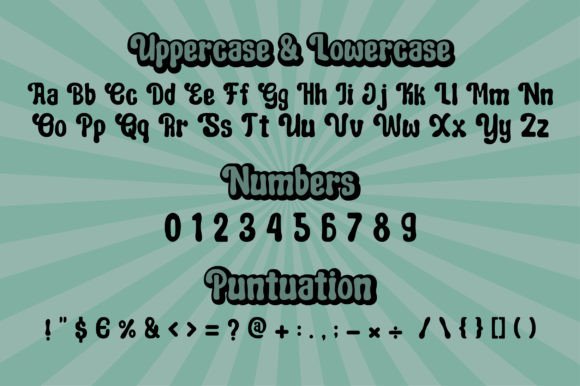
Retro Groovy Font
Retro Groovy is an Eye-Catching display font. Use it to add that special retro touch to any design idea! Add it confidently to your projects, and you will love the results.